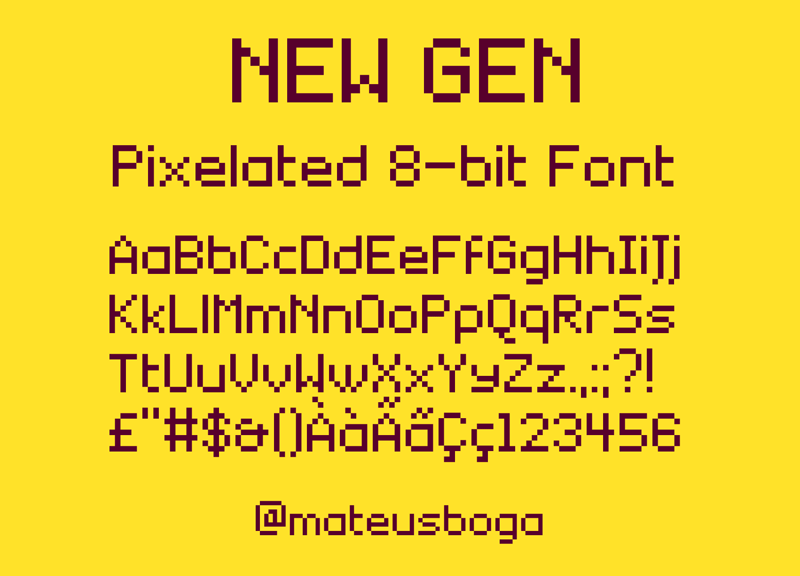
Font name: | New Gen |
Author: | Mateus Boga |
Note by Mateus Boga | |
New Gen is a bitmap font inspired by classic videogame fonts (ex. NES) and sans-serif fonts like Century Gothic. This font supports the latin, cyrillic, greek, hebrew and georgian alphabets. |